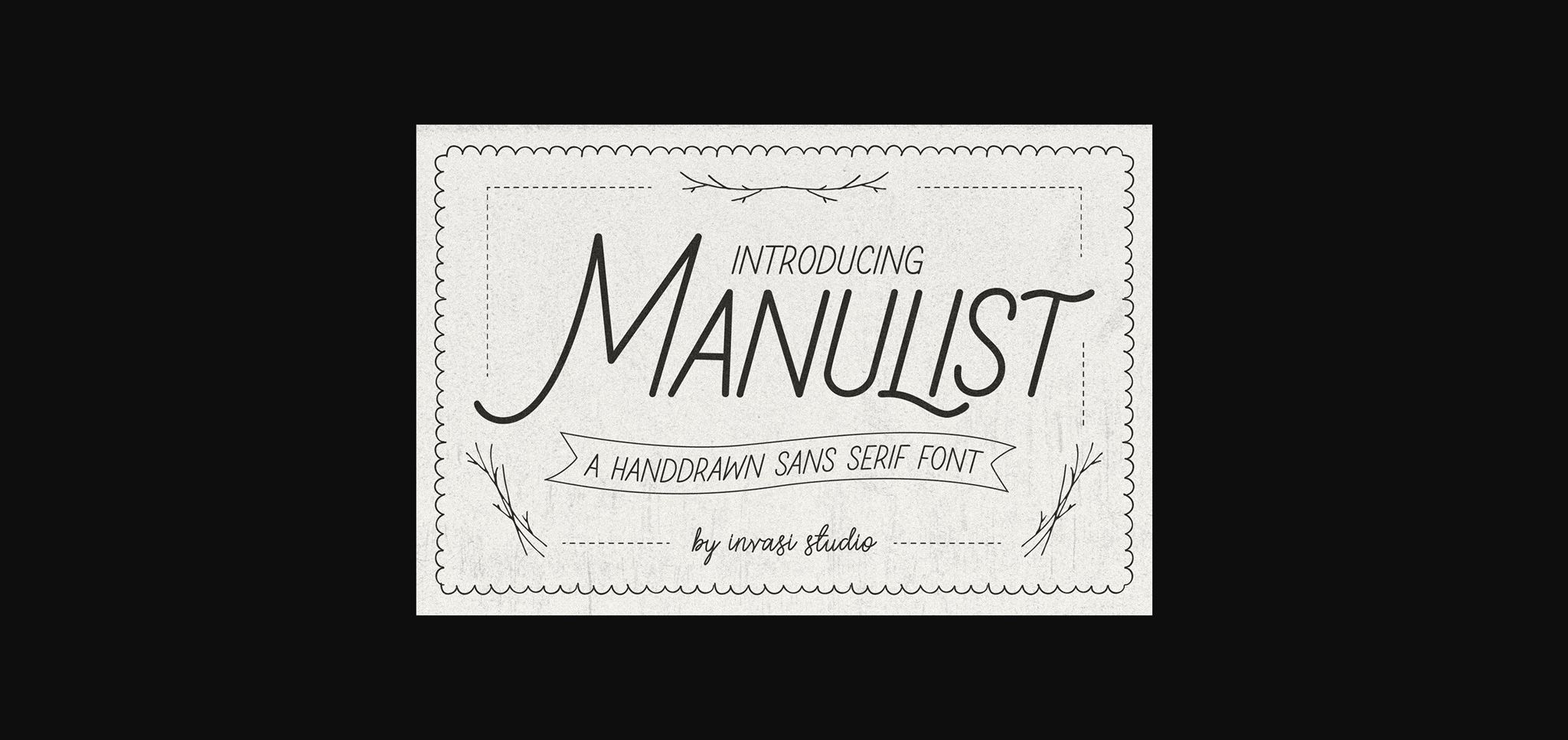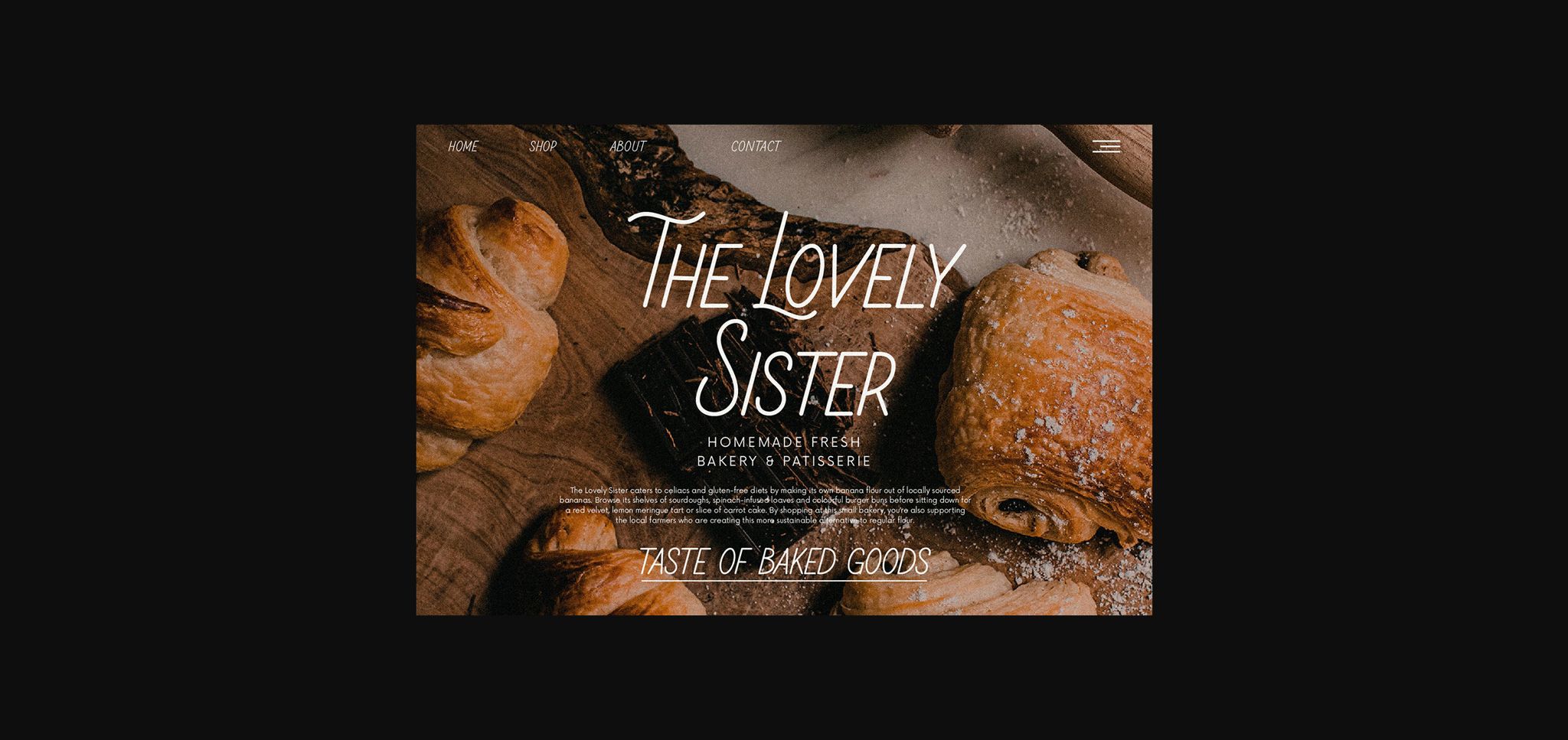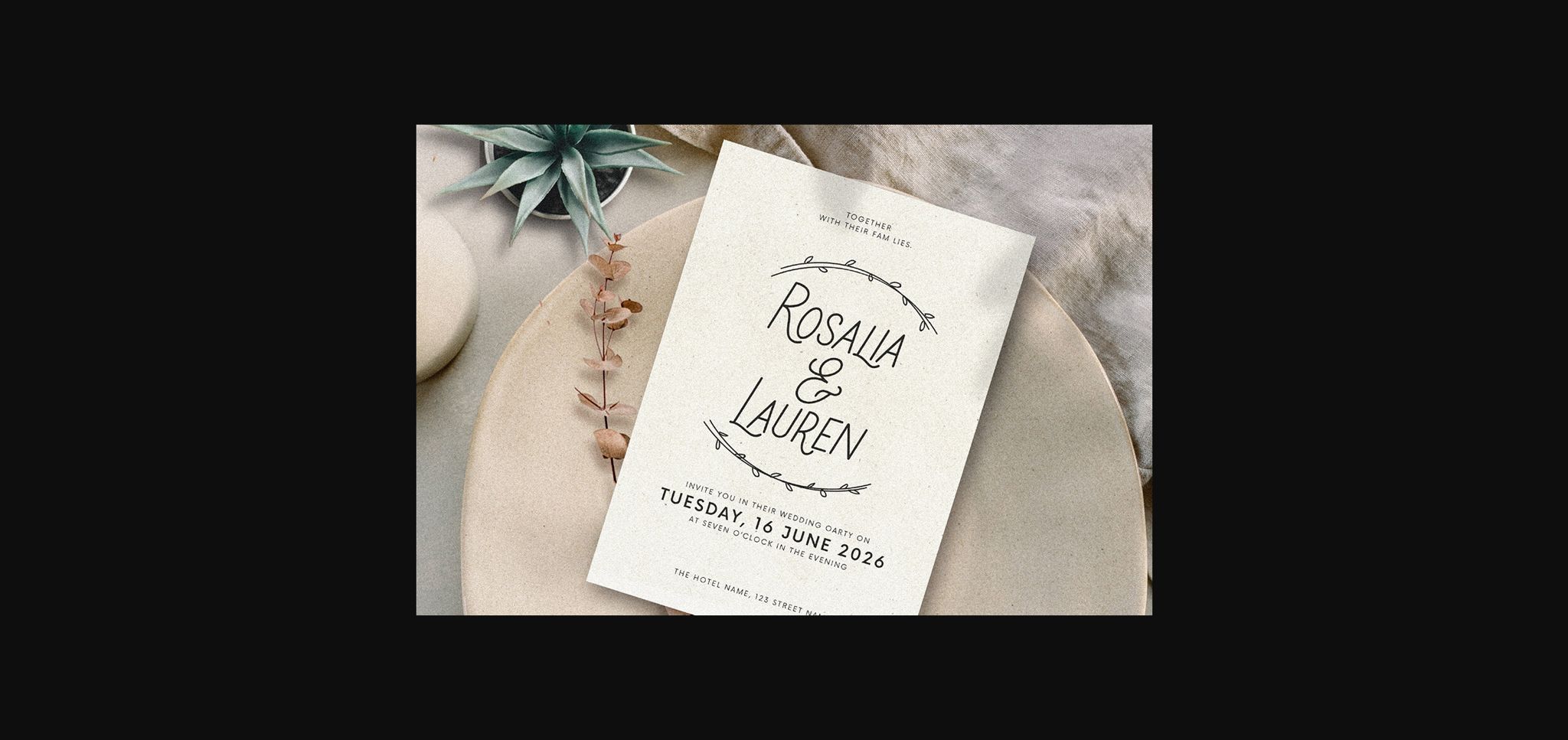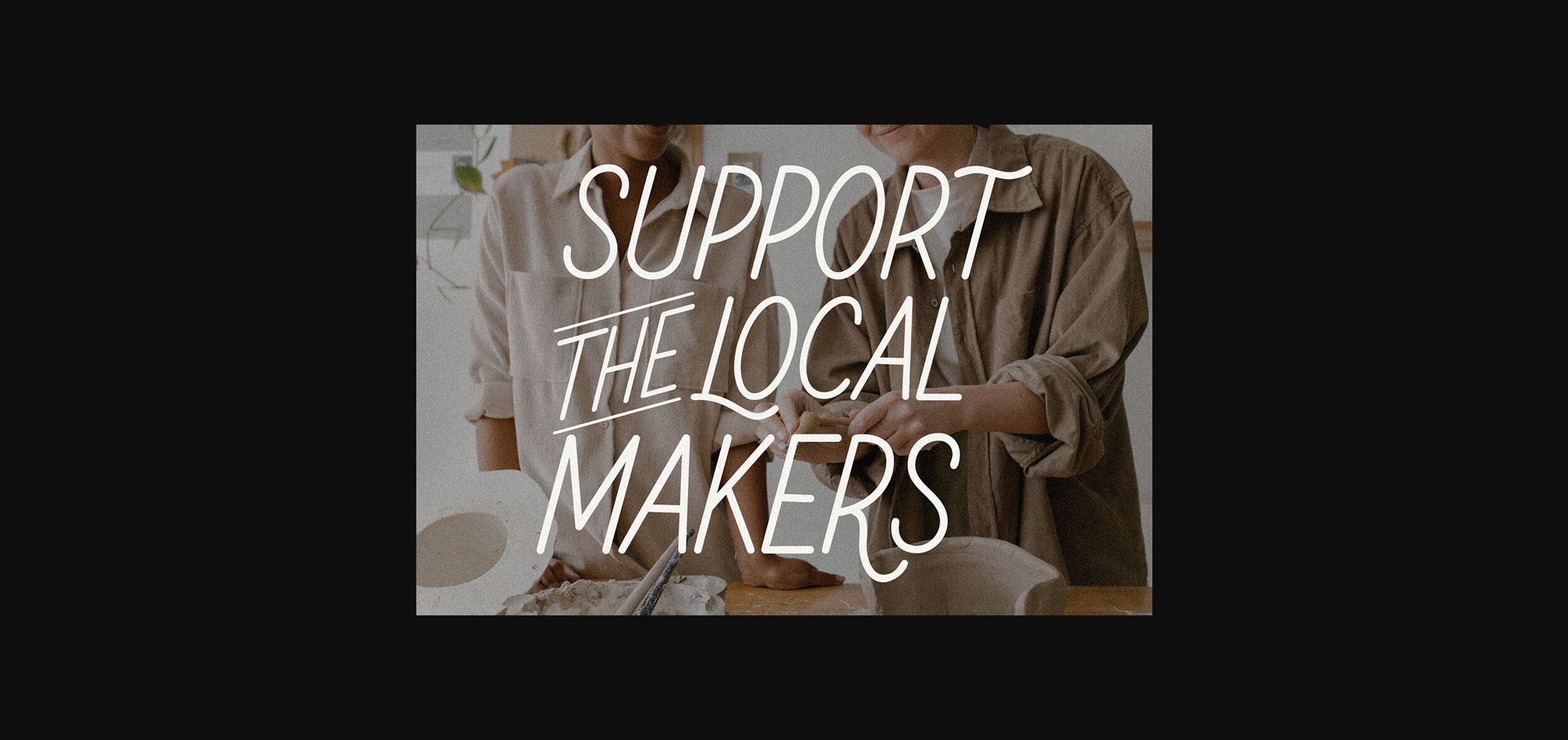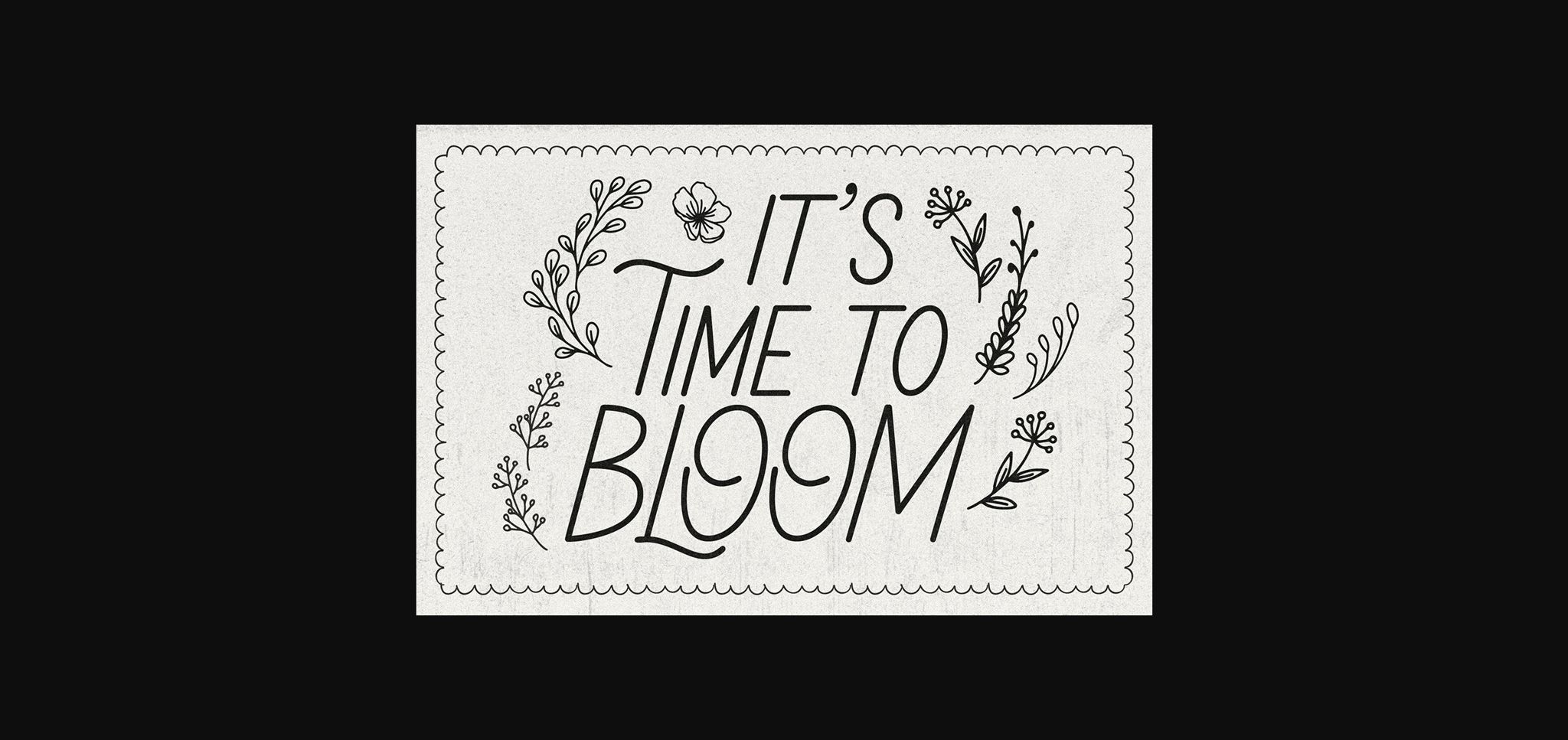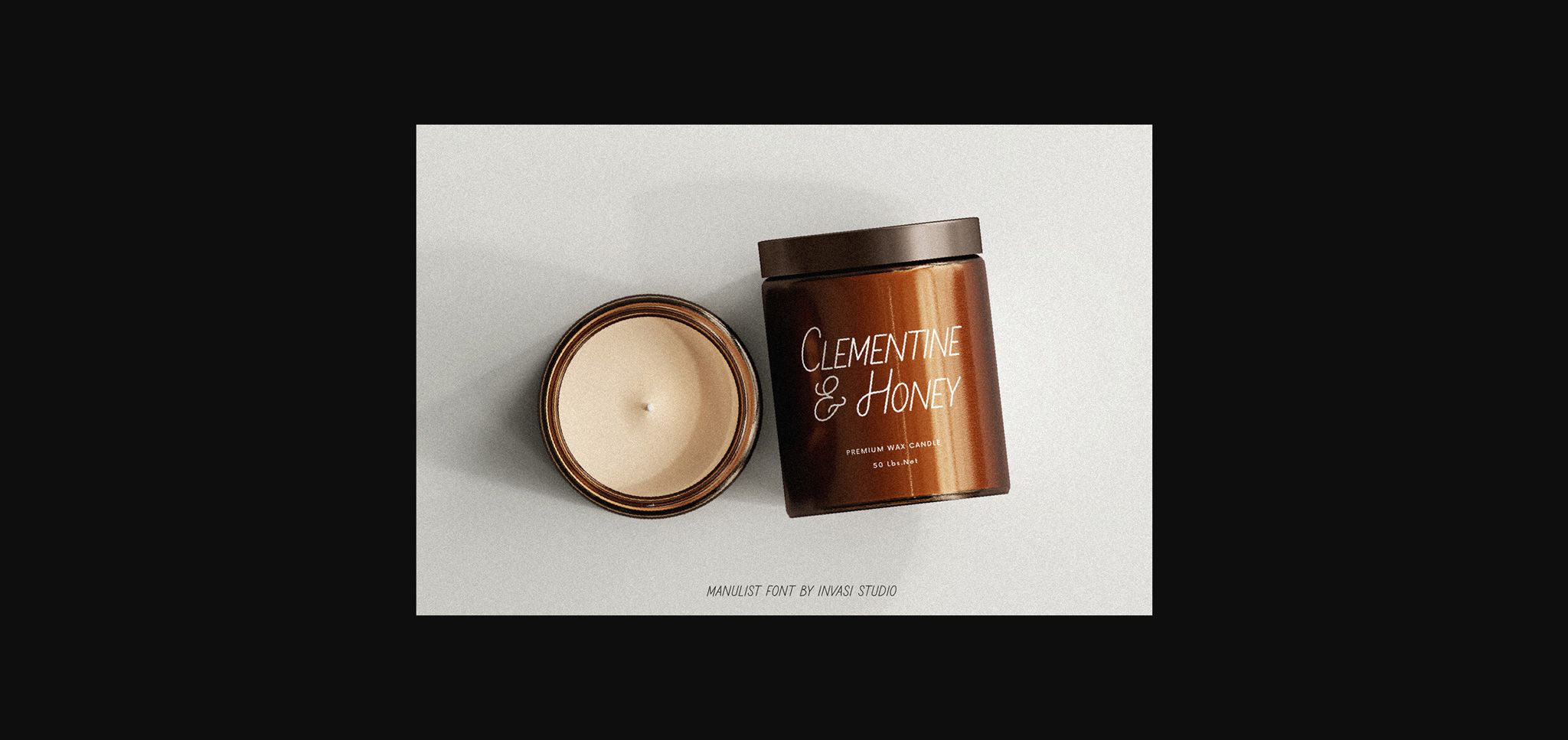
Manulist Font
About Manulist Font
Meet Manulist, your new go-to font for a natural hand-drawn look full of charm! With its all-caps style and big uppercase letters, this font exudes a classic elegant look. But wait, there’s more! Manulist also comes with elegant alternates, adding a touch of sophistication to your designs.